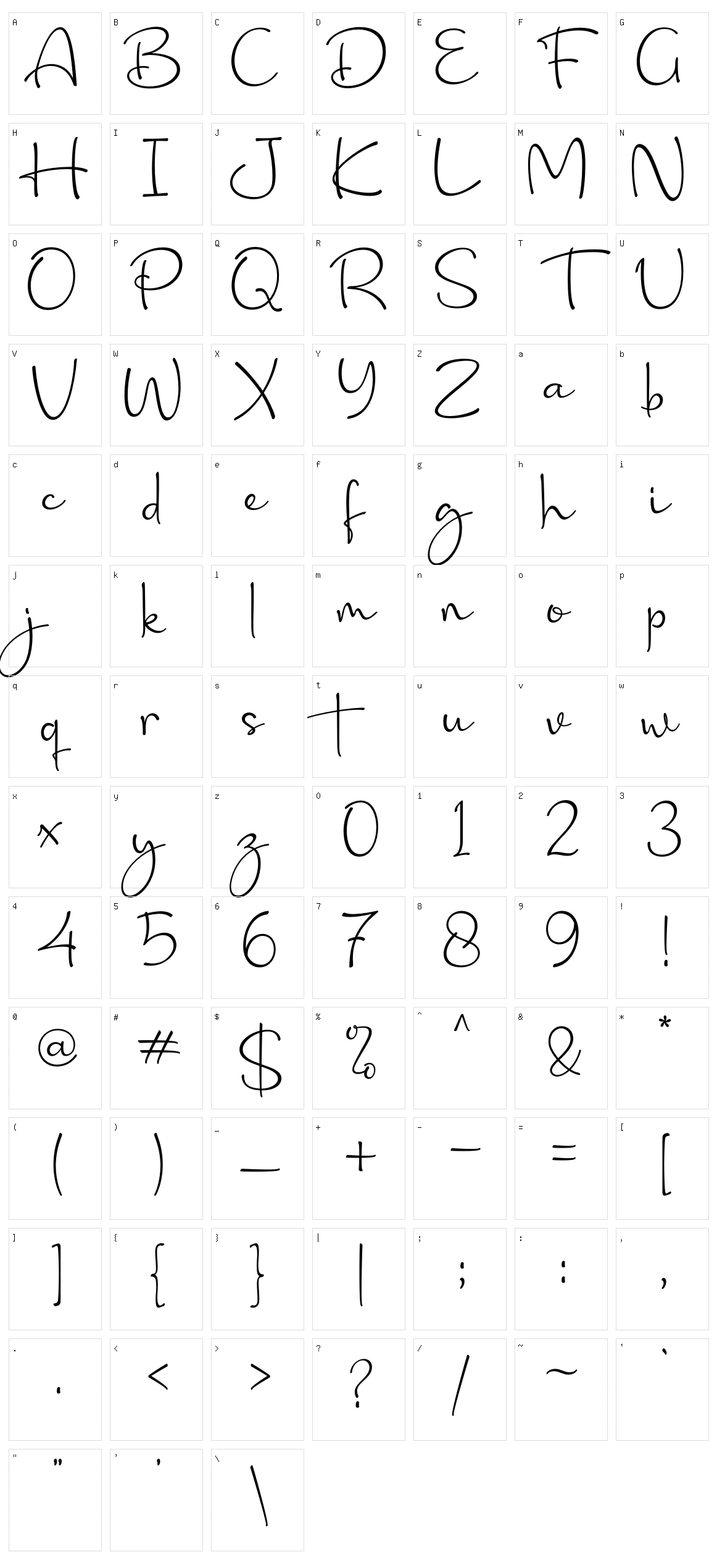
The free font Quixotic is carefully designed by Typeline Studio, showcasing a thoughtful balance of creativity and usability and falls under the Script font style. When you download the ZIP file, it contains only 44.33 KB of font files, making it lightweight and quick to download. Please review the license details below to understand permitted usage and distribution rights. If license information is not available, we recommend using this font for personal projects only or contacting the author directly for commercial usage permissions.